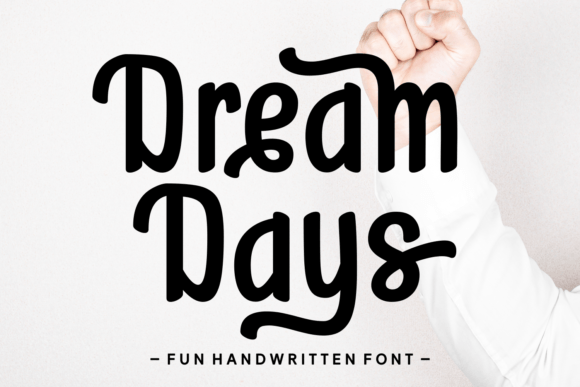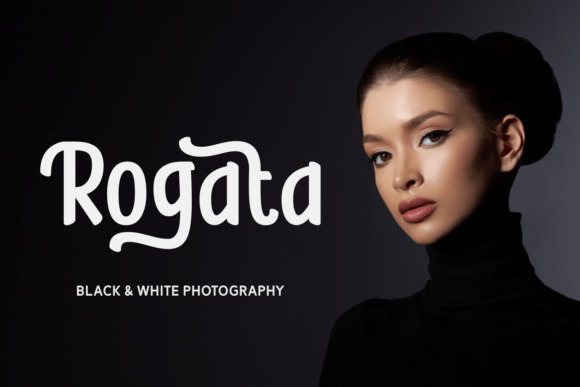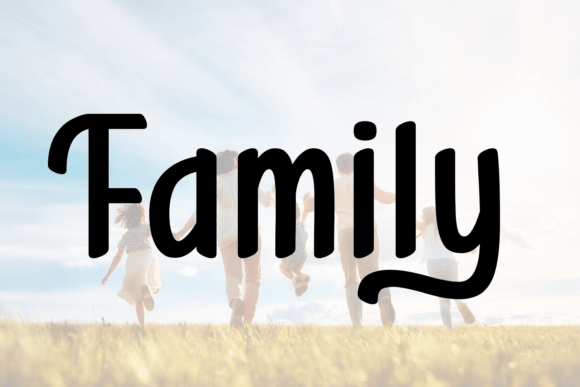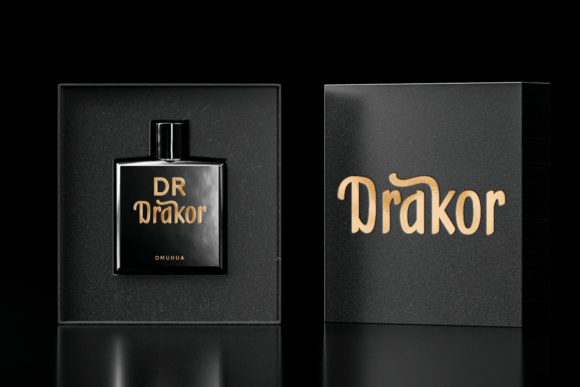
Dream Days Font
Introducing a decidedly diverse font collection for a myriad of applications — a handwritten charm perfect for casual and cute details, to sleek and simple branding casts. Our offering caters to any creative demands, providing you with a medley of smooth, round, or striped accents suited best for your apparel, book covers, or product packaging. Whether you’re looking for logotype fonts, quote fonts, or something unique for your Instagram posts, we’ve covered everything from casual blogger style to elegant calligraphy. Love fonts lend themselves well to romantic expressions, while school fonts and script fonts exude an authentic and educational feel. Cater to every seasonal event with fonts suitable for creating greeting cards, Easter celebrations and more, complete with multilingual support for broader reach. If you want a playful vibe, our fun, chubby, and crafty fonts are a perfect choice. For those who seek sophistication, we have elegant, fashion fonts with beautiful ligatures. The 7ntypes collection proves that fonts can be more than just type — they’re a bridge between ideas and expression.